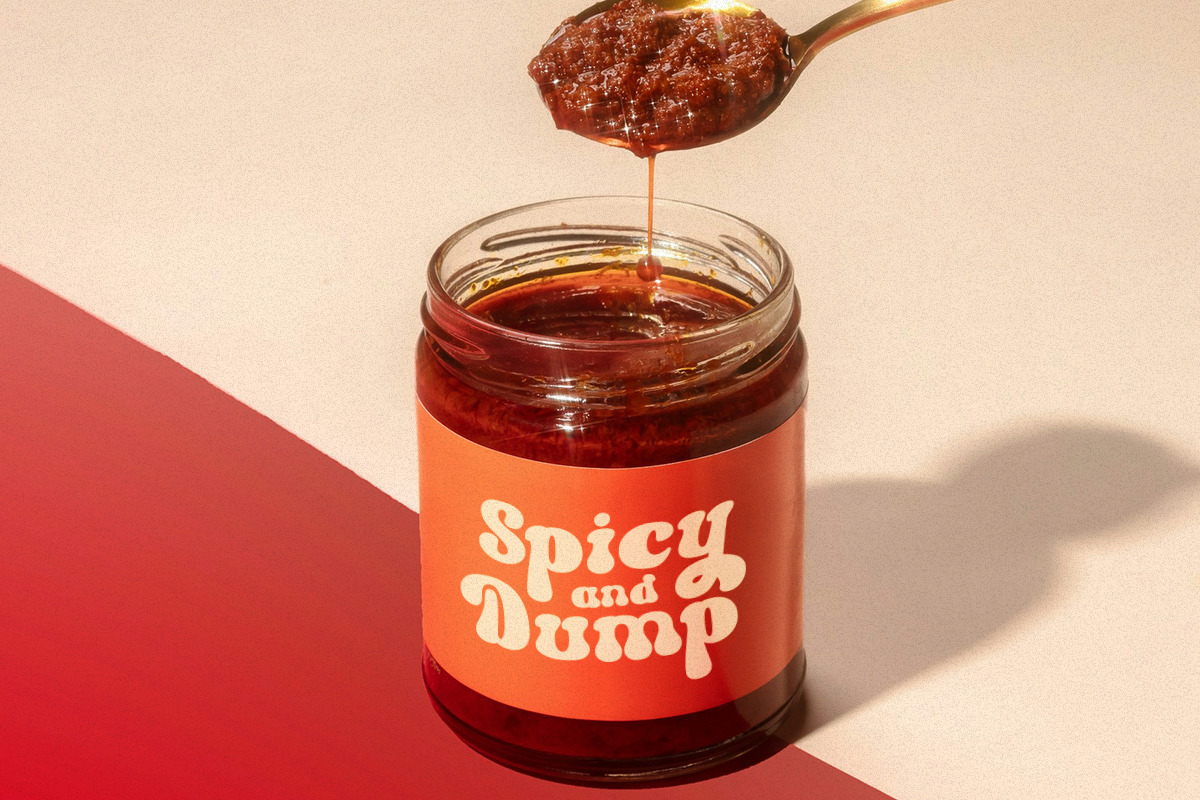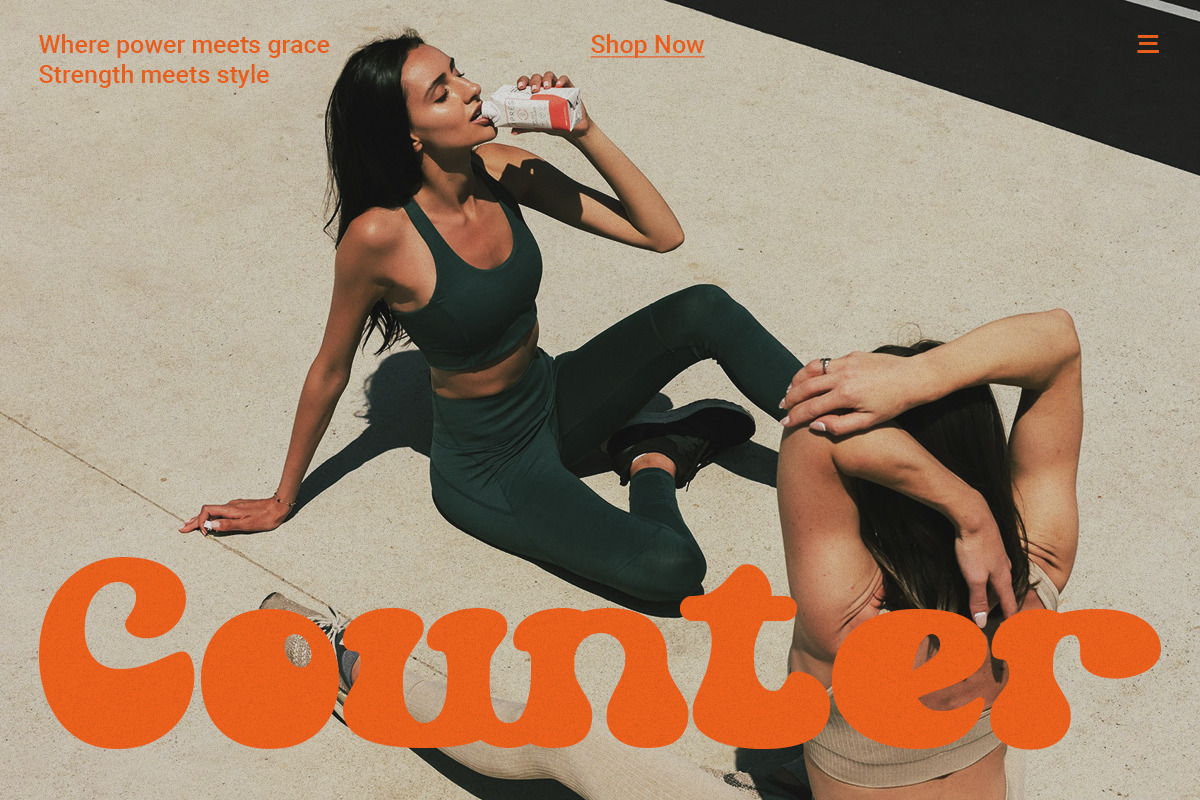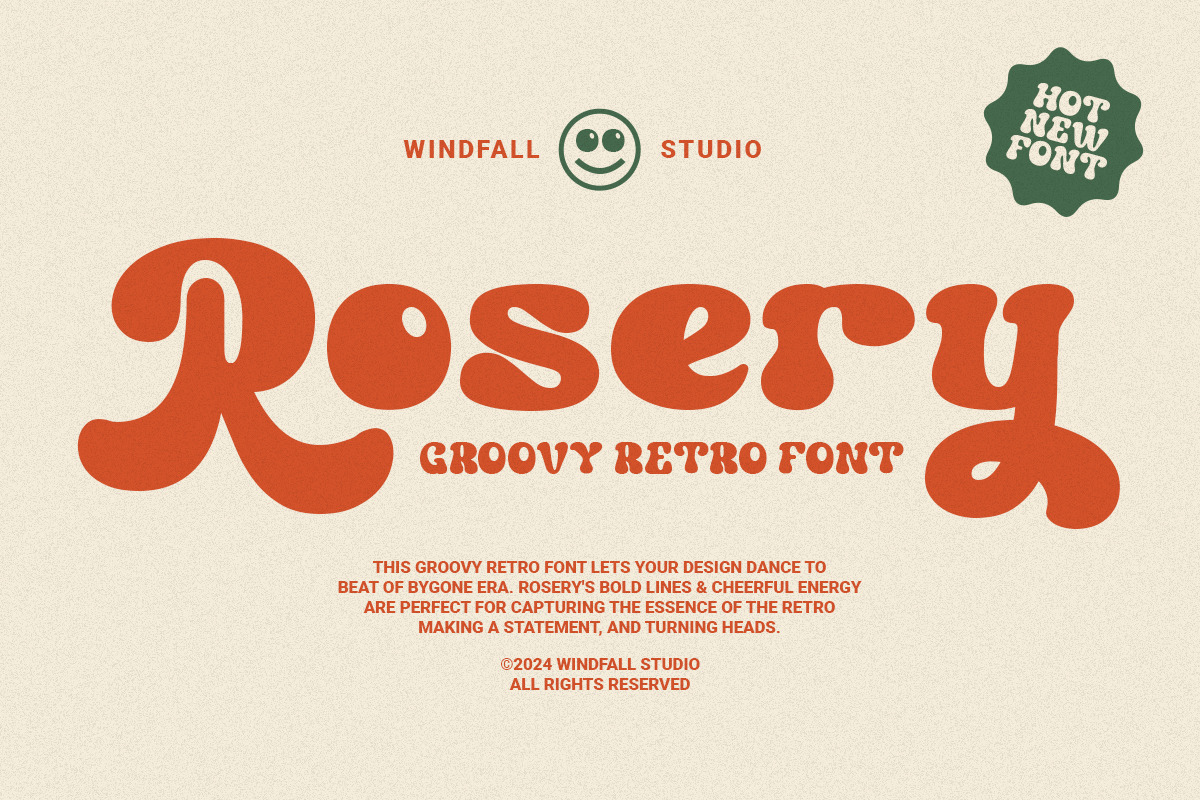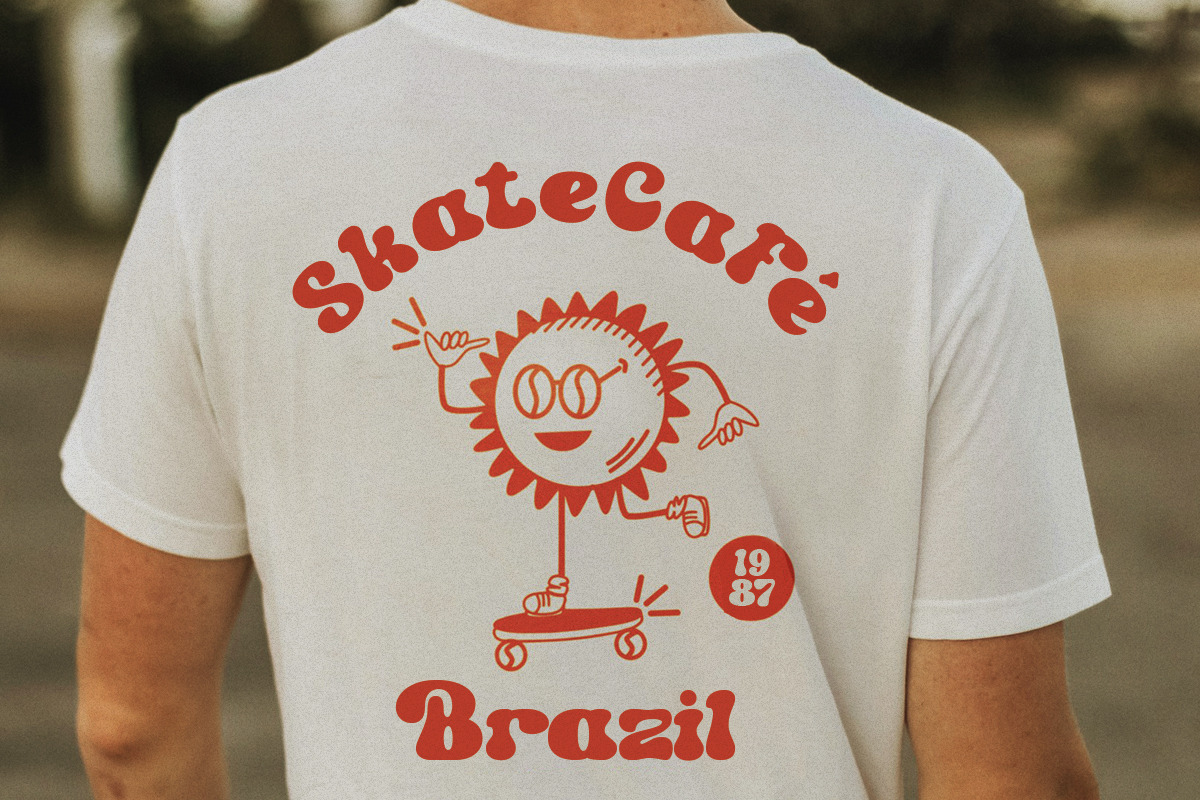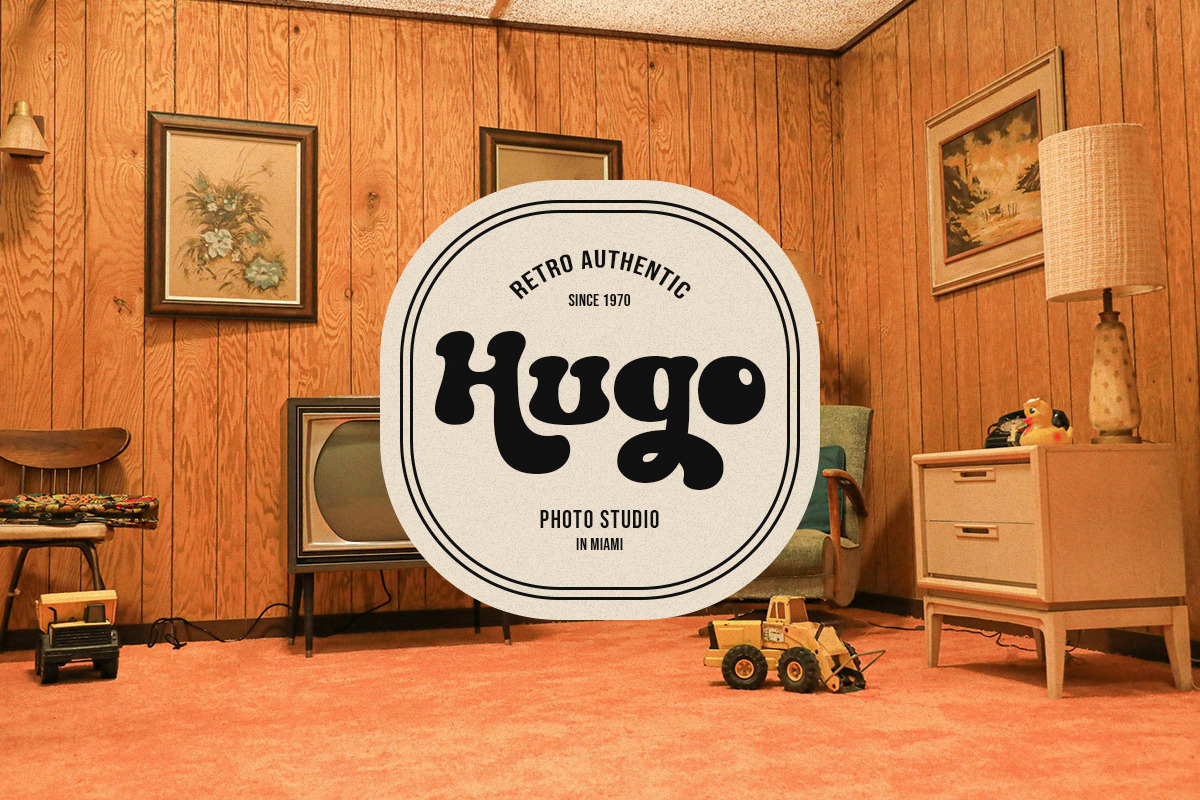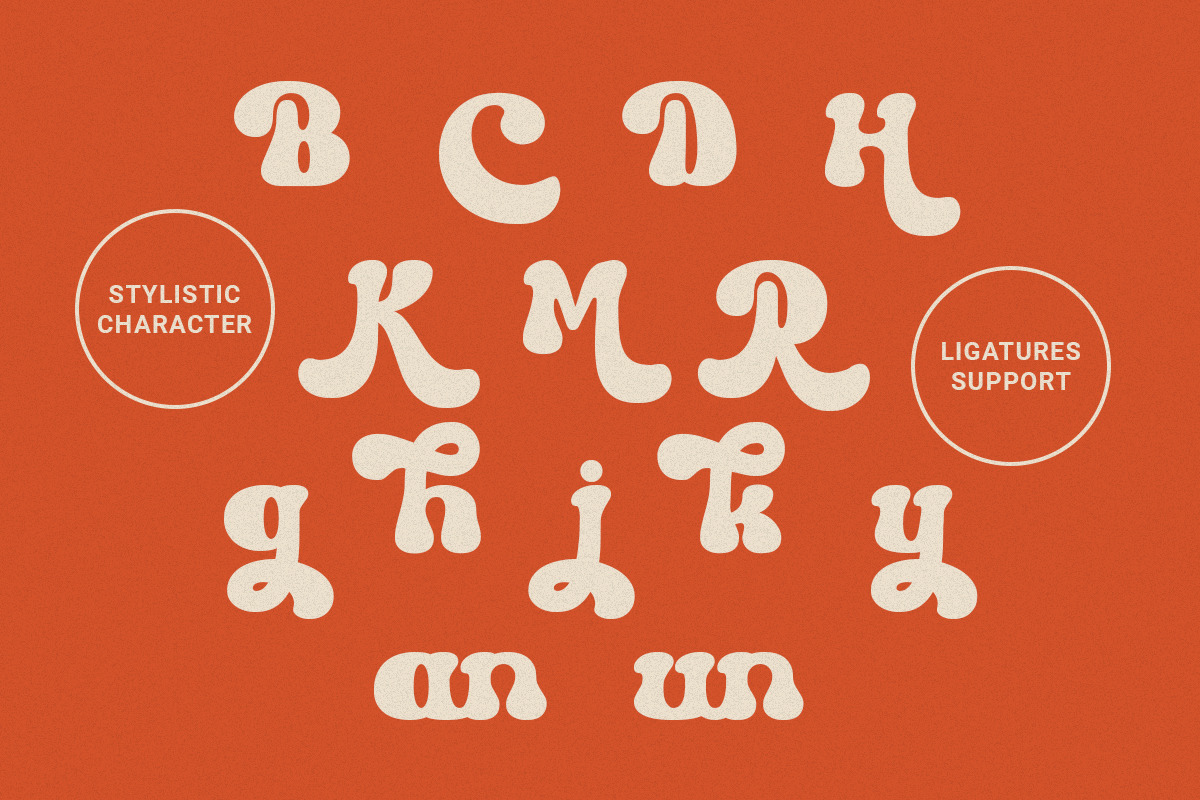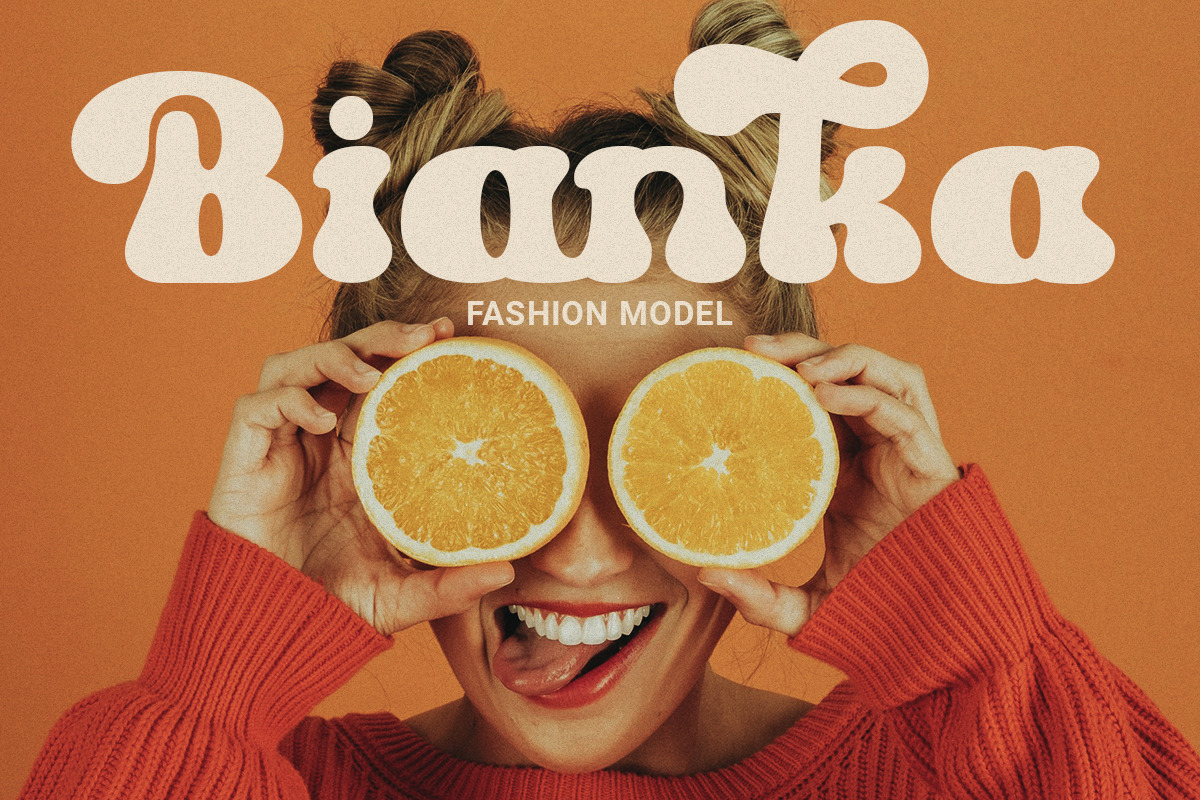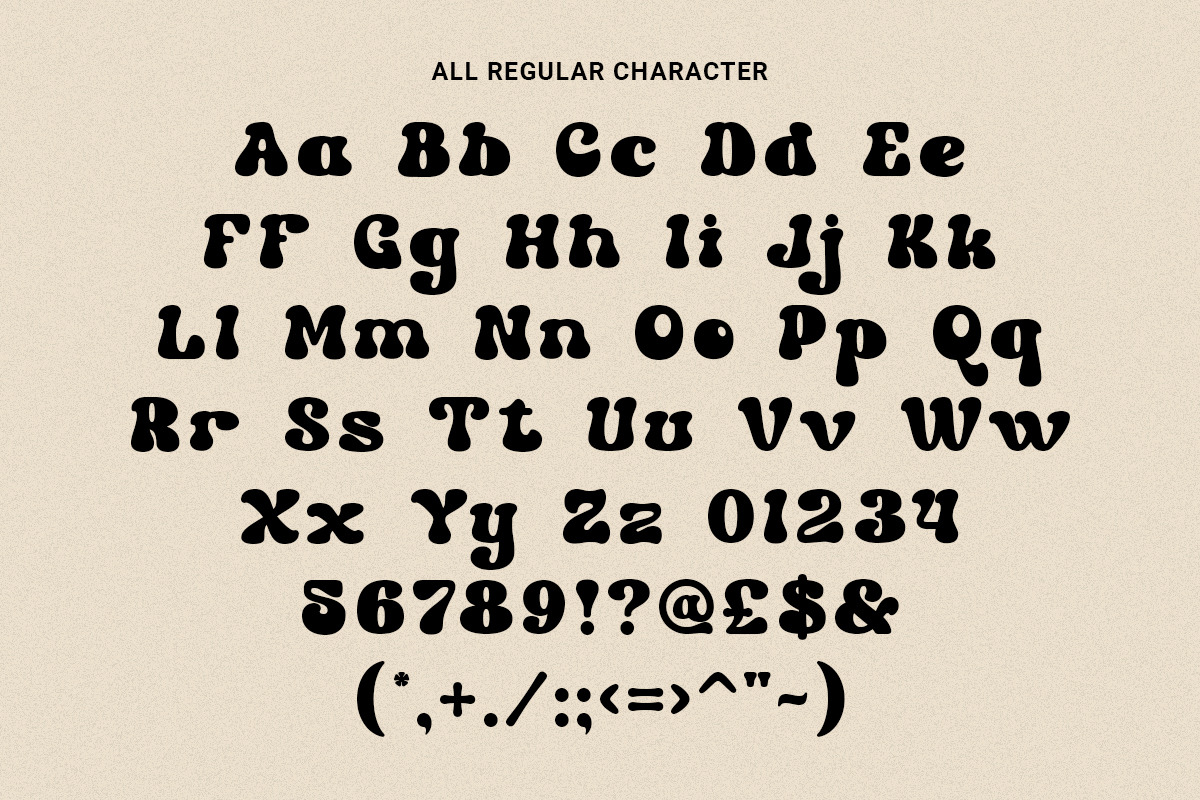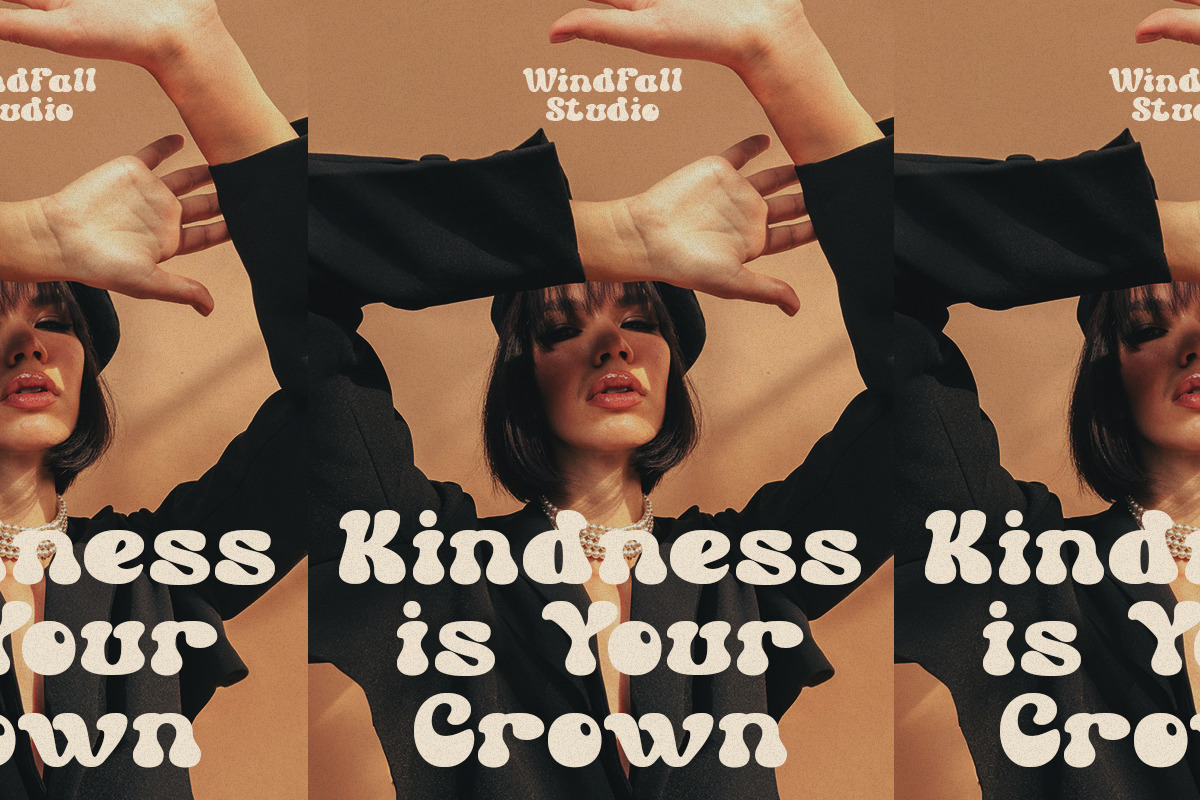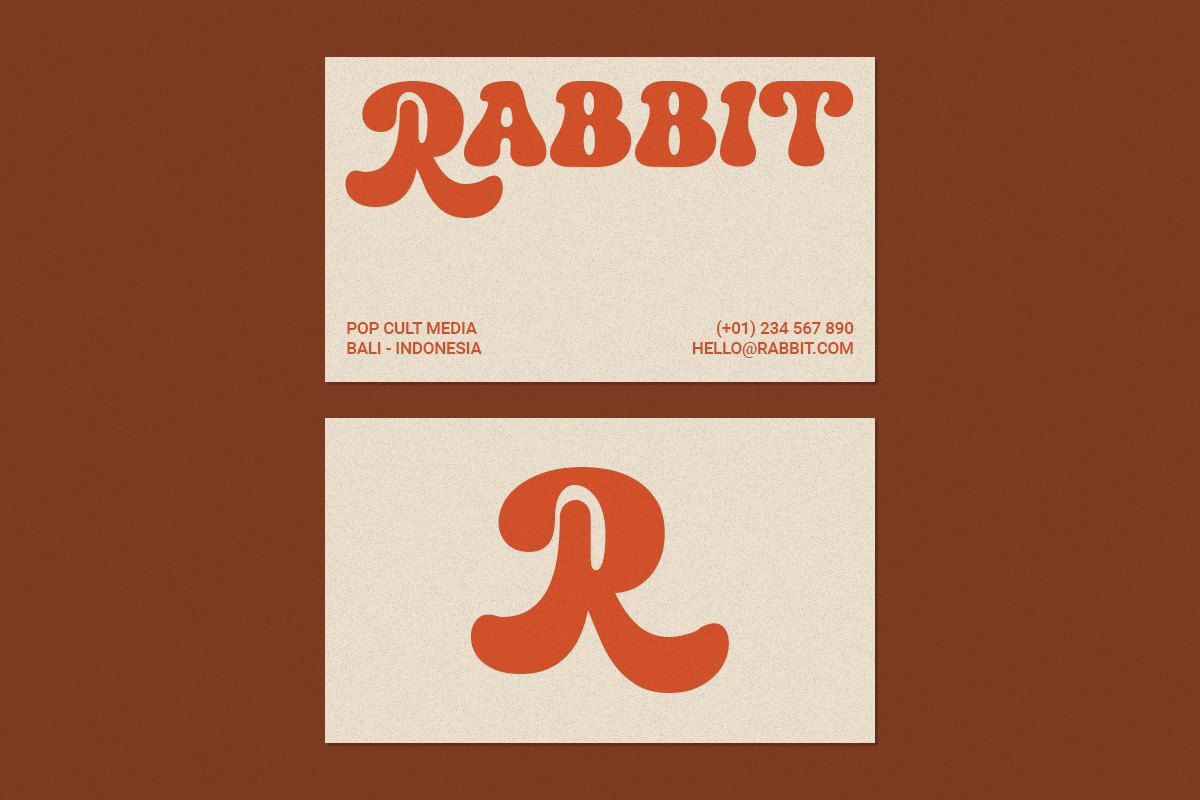
Rosery - Groovy Retro Font
Rosery is a groovy retro font from Windfall Studio, designed to transport your designs back to the colorful and vibrant era of the 60s and 70s. With bold, rounded letters and playful curves, this font embodies the essence of retro style, making it perfect for projects that require a vintage, fun, and energetic look.
Ideal for posters, logos, packaging, and any project needing a touch of nostalgia, Rosery will elevate your design with its unique, eye-catching charm. Whether you're creating a retro-themed event invitation, a groovy product label, or an old-school branding project, Rosery is the perfect choice.
Included in the font package are OTF, TTF, WOFF, and WOFF2 file formats for seamless integration into various platforms and design software. Rosery also includes special characters and ligatures, allowing you to create unique compositions that stand out. Let Rosery take your designs to the next level with its authentic retro vibes!